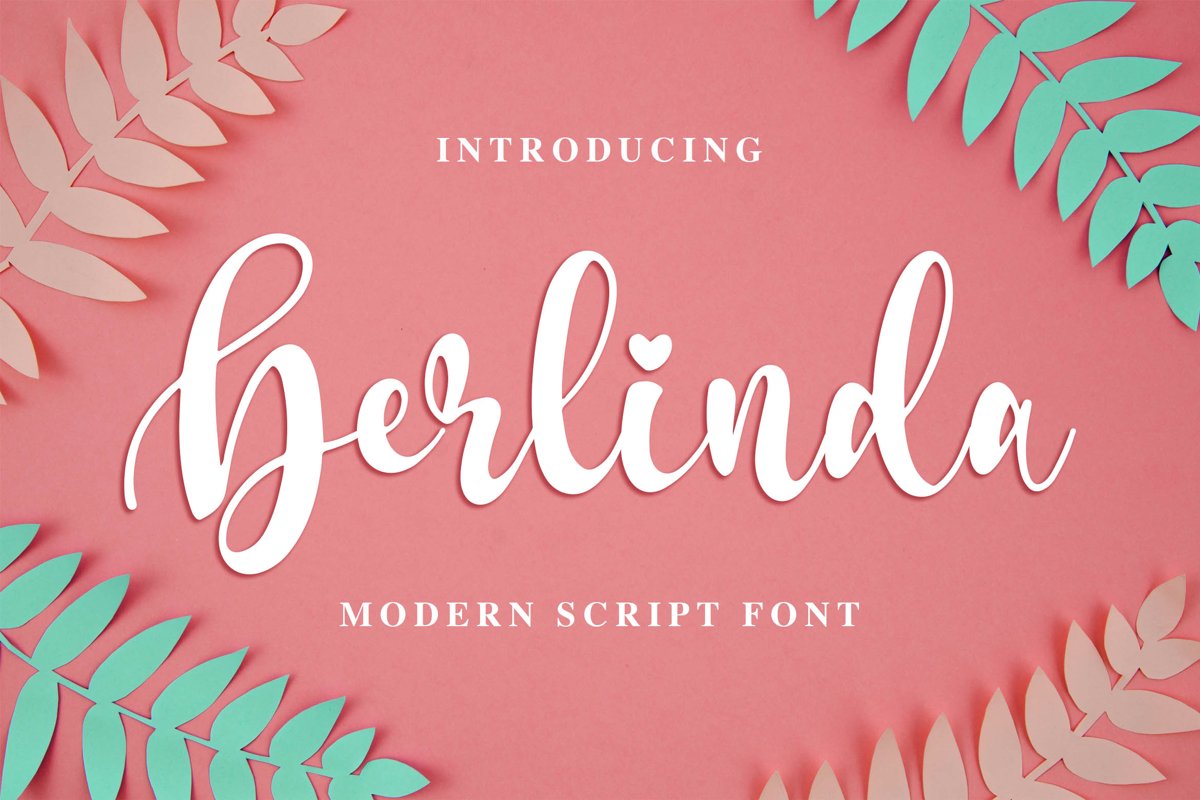
Introducing of our new product the name is Berlinda Modern Script Font. Berlinda inspired by Beauty modern script style this font is a fun theme very good for signature, poster, fashion, wedding, branding etc
MULTILINGUAL ACCENT :ØÆøæ¢ÐŒœÁĂÂÀÄĄÅÃǼĆČÇĈĊĎÉĔĚÊËĖÈĘĞĜĢĠĤÍĬÎÏİÌĮĨĴĶĹĽĻĿŃŇŅÑÓŎÔÖÒŐǾÕŔŘŖŚŠŞŜȘŤŢÚŬÛÜÙŰŲŮŨẂŴẄẀÝŶŸỲŹŽŻáăâäàąåãǽćčçĉċďéĕěêëėèęğĝģġĥíîïìįĩĵķĺľļŀńʼnňņñóŏôöòőǿõŕřŗśšşŝșťţŭûüűùųůũẃŵẅẁýŷÿỳźžż